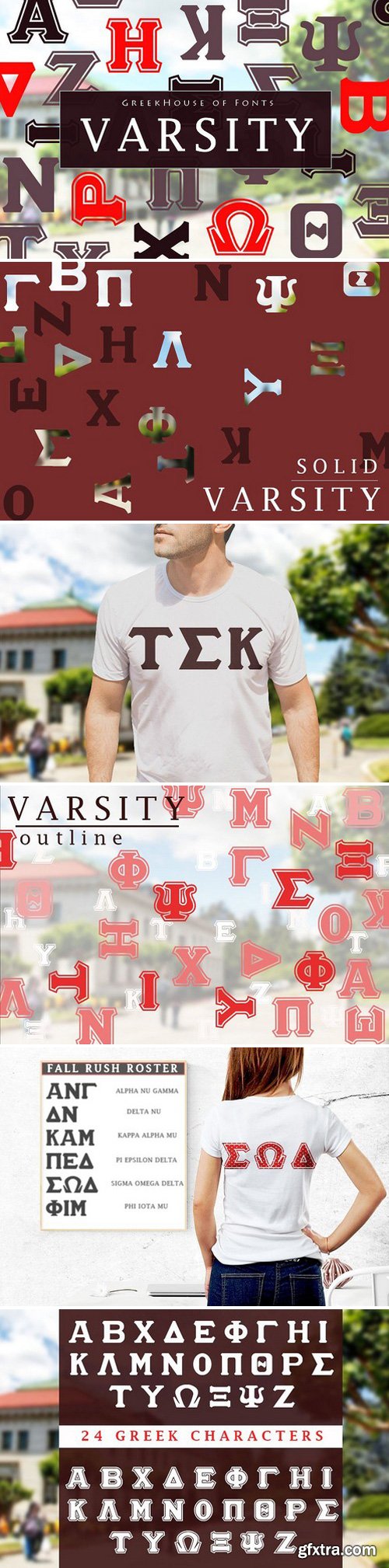
This varsity Greek font set includes both solid and outline collegiate style lettering in .TTF format. This font is perfect for designing T-shirts, fliers, and other collegiate graphic design schwag. This font is generally made for fraternities but can also be used for sororities.
Type lowercase for solid style Greek lettering and type UPPERCASE for outline style Greek lettering. This font does not contain Latin/English characters.